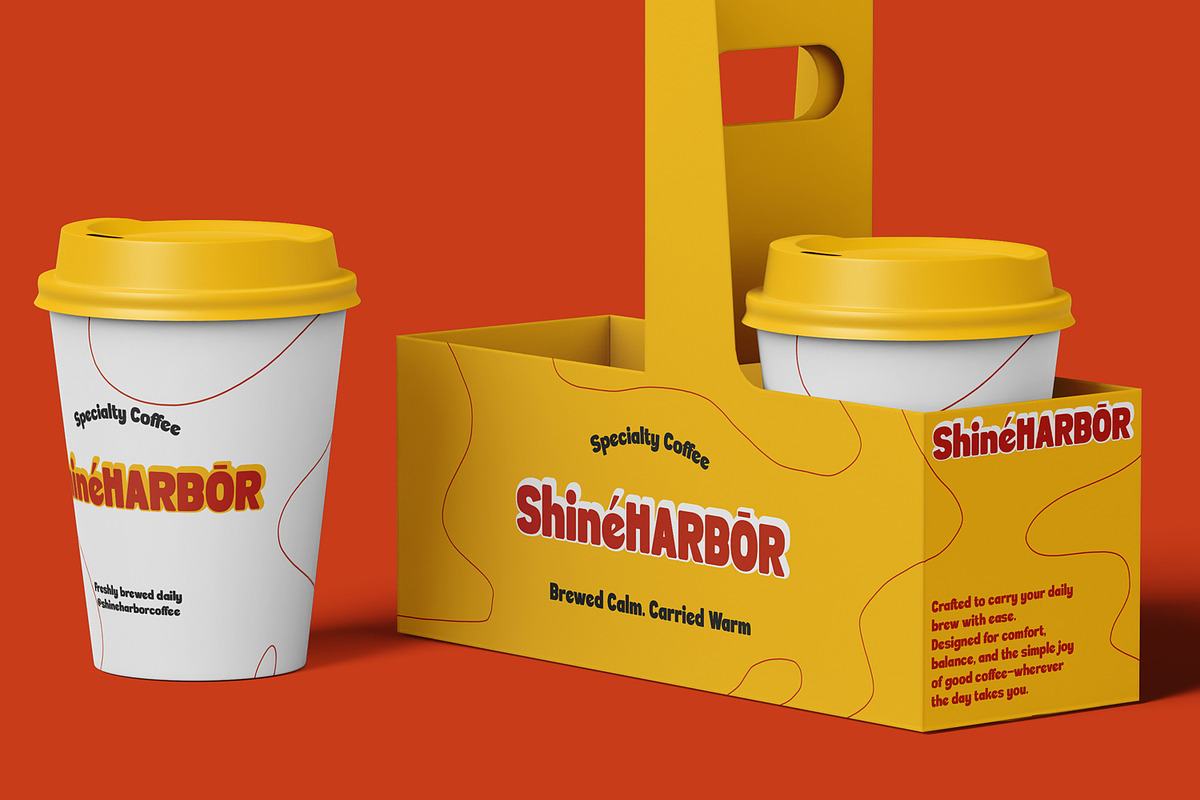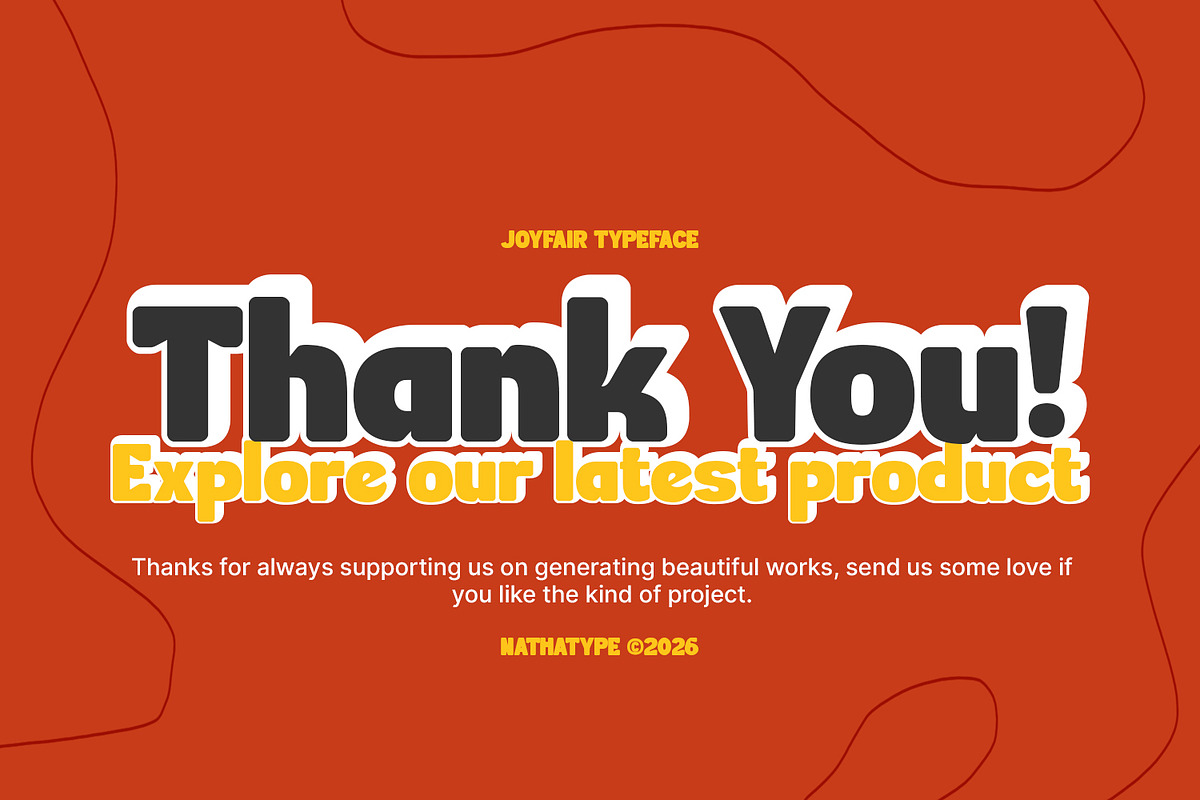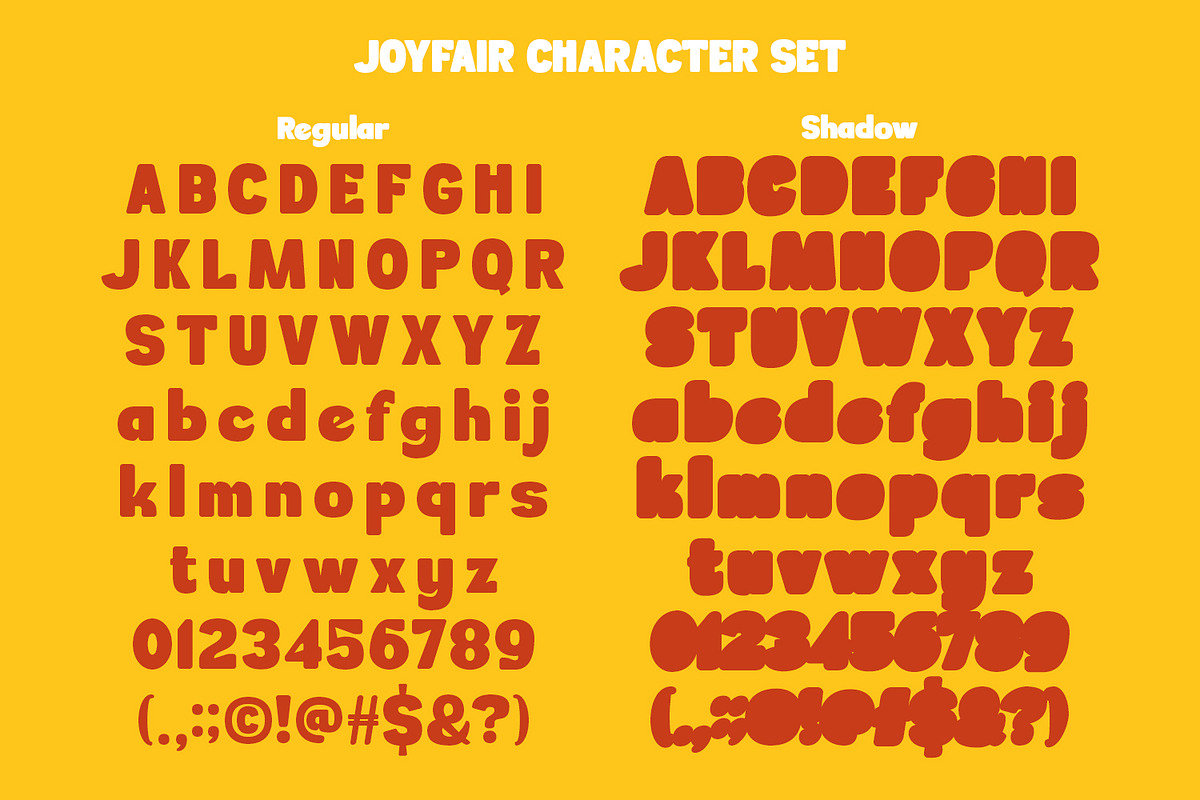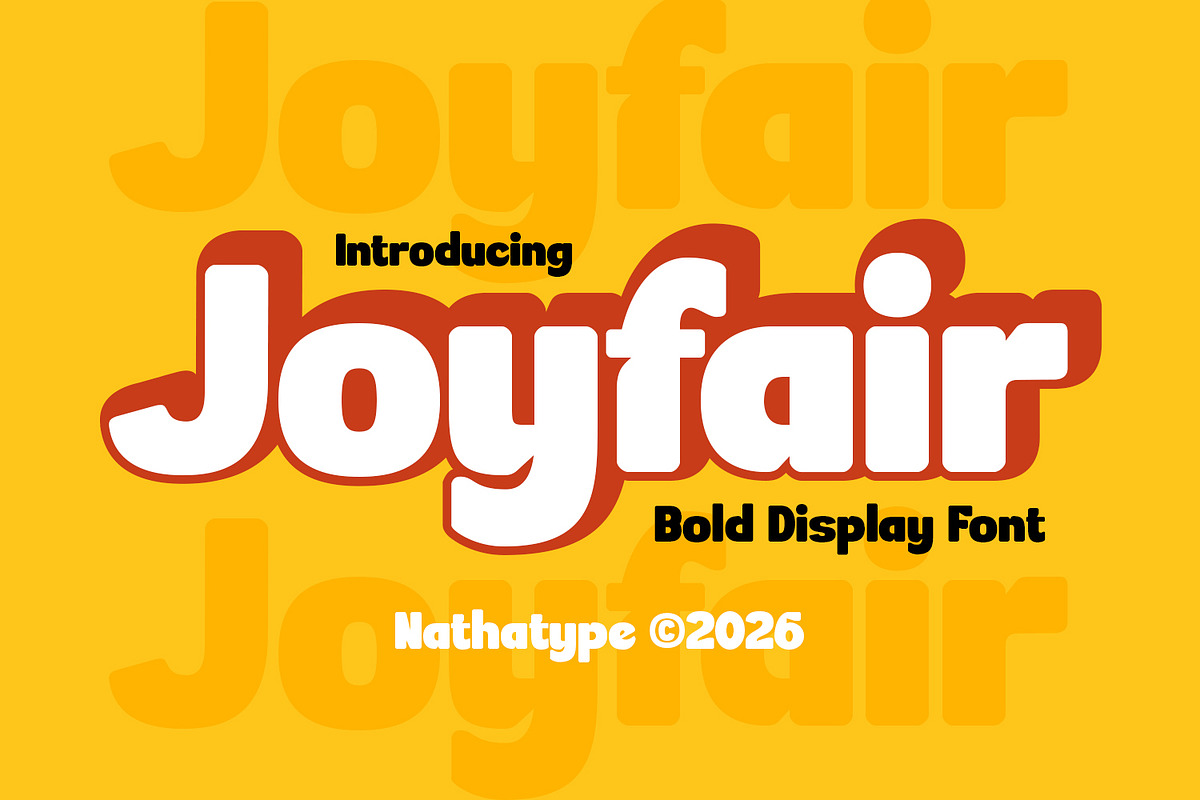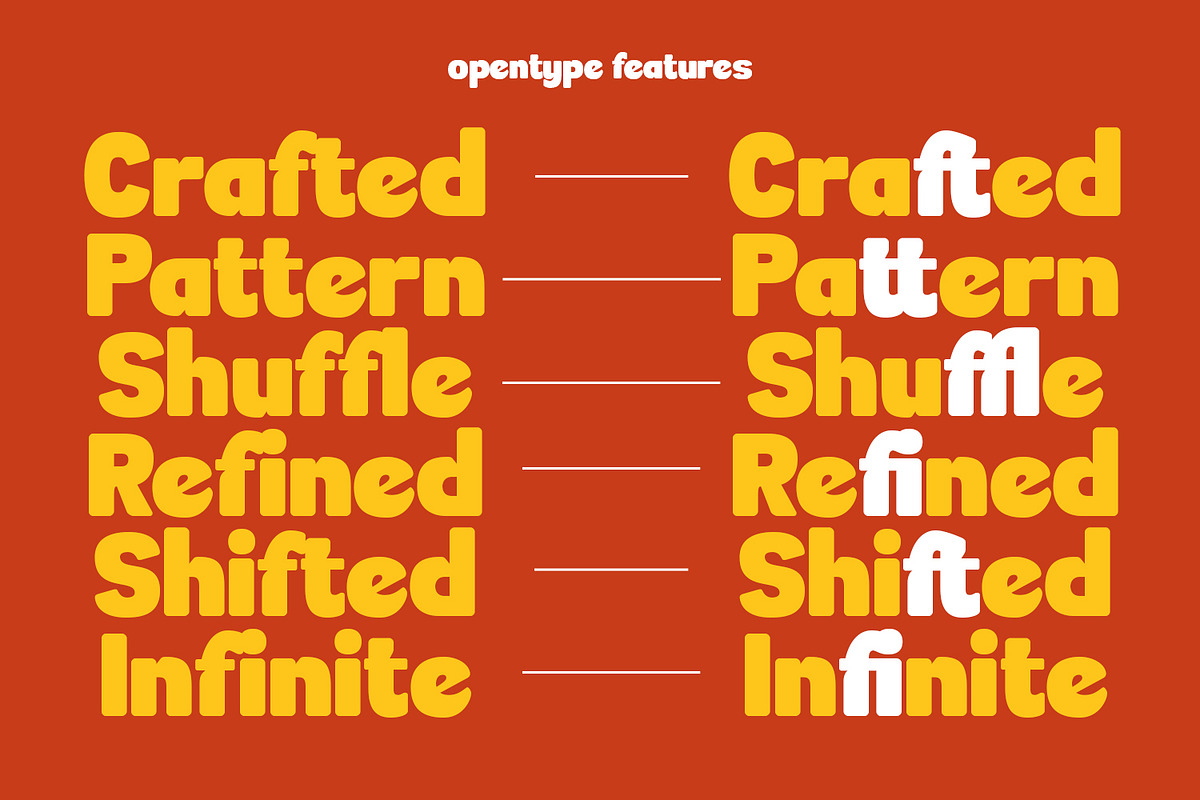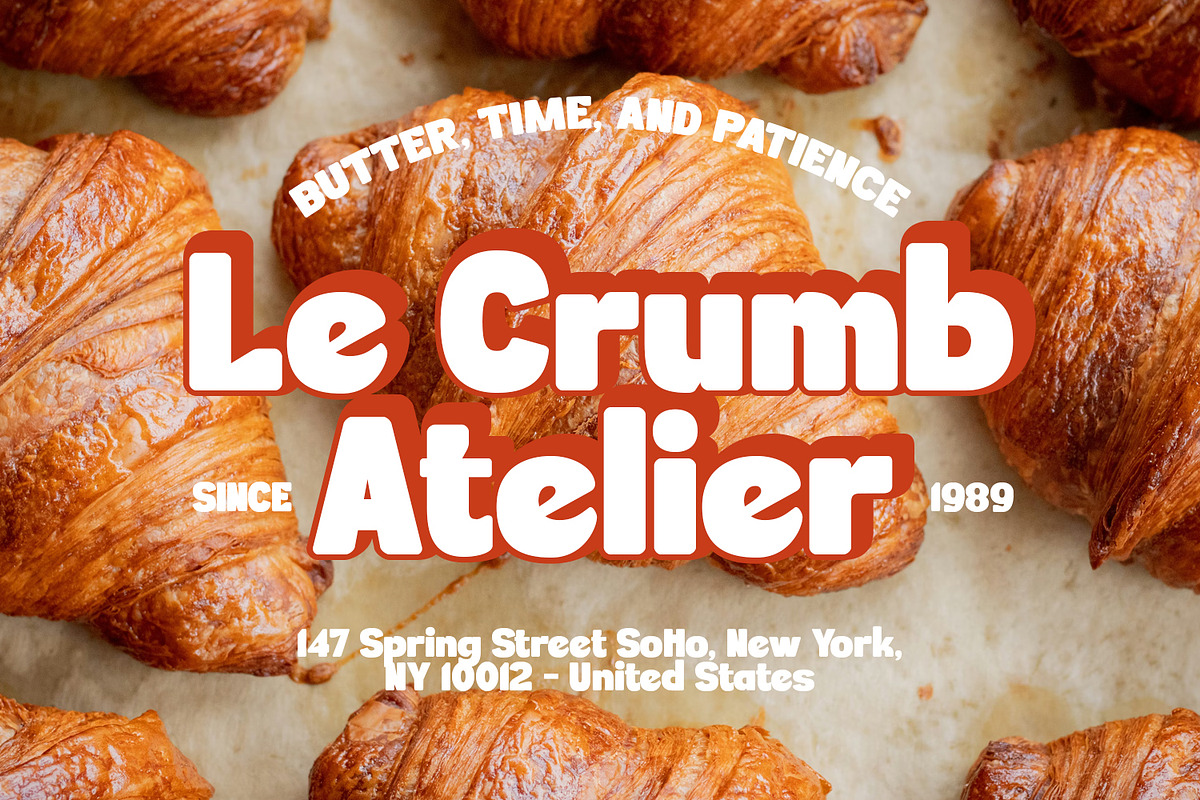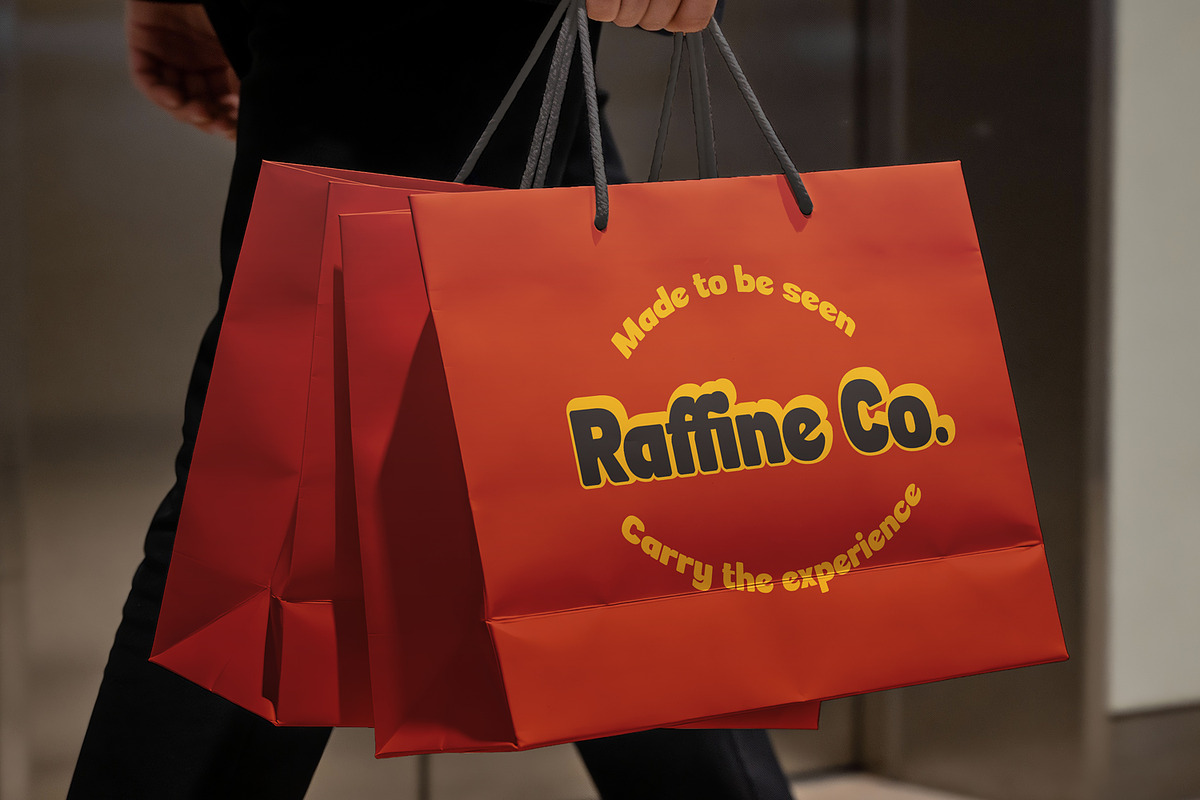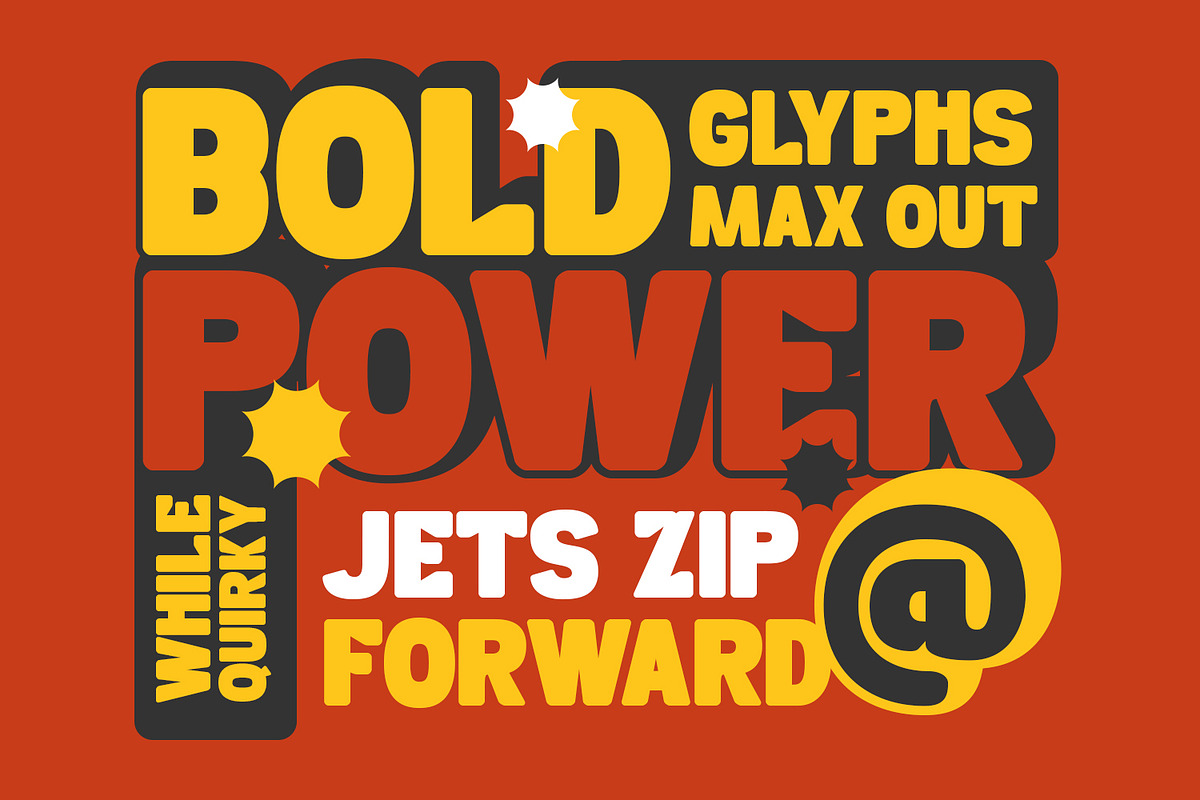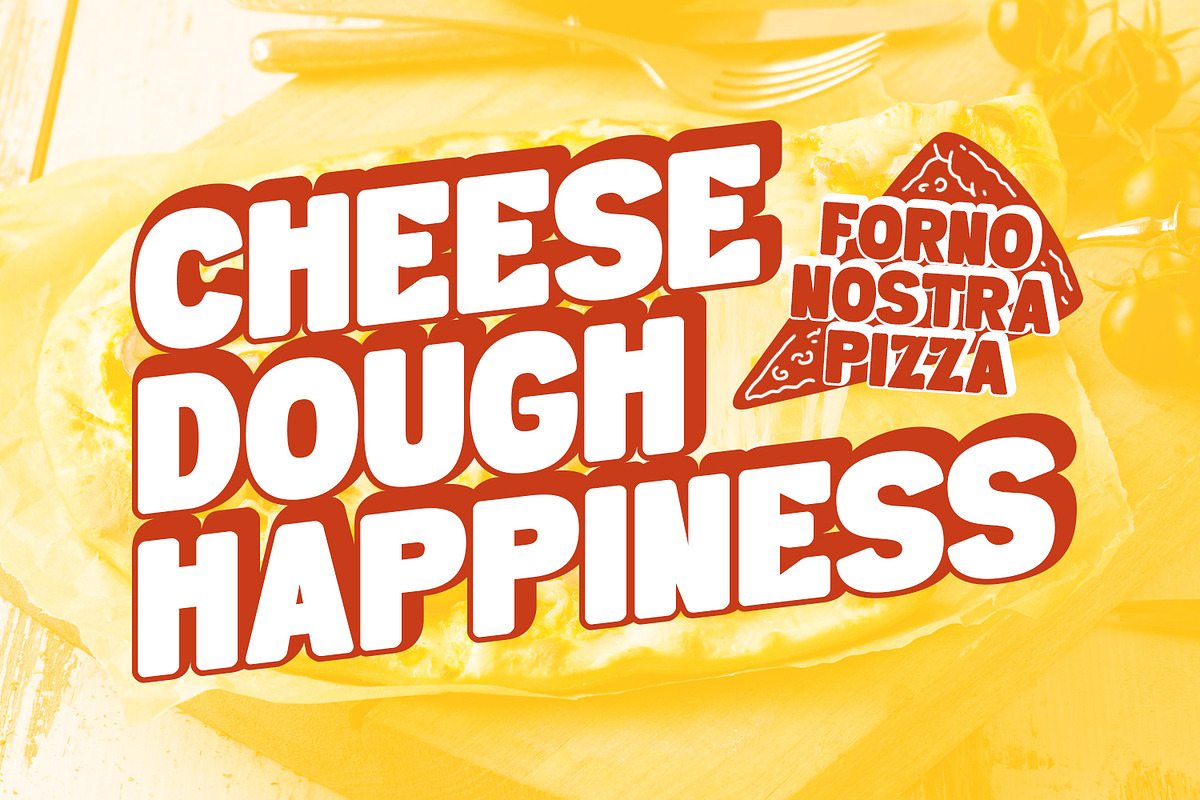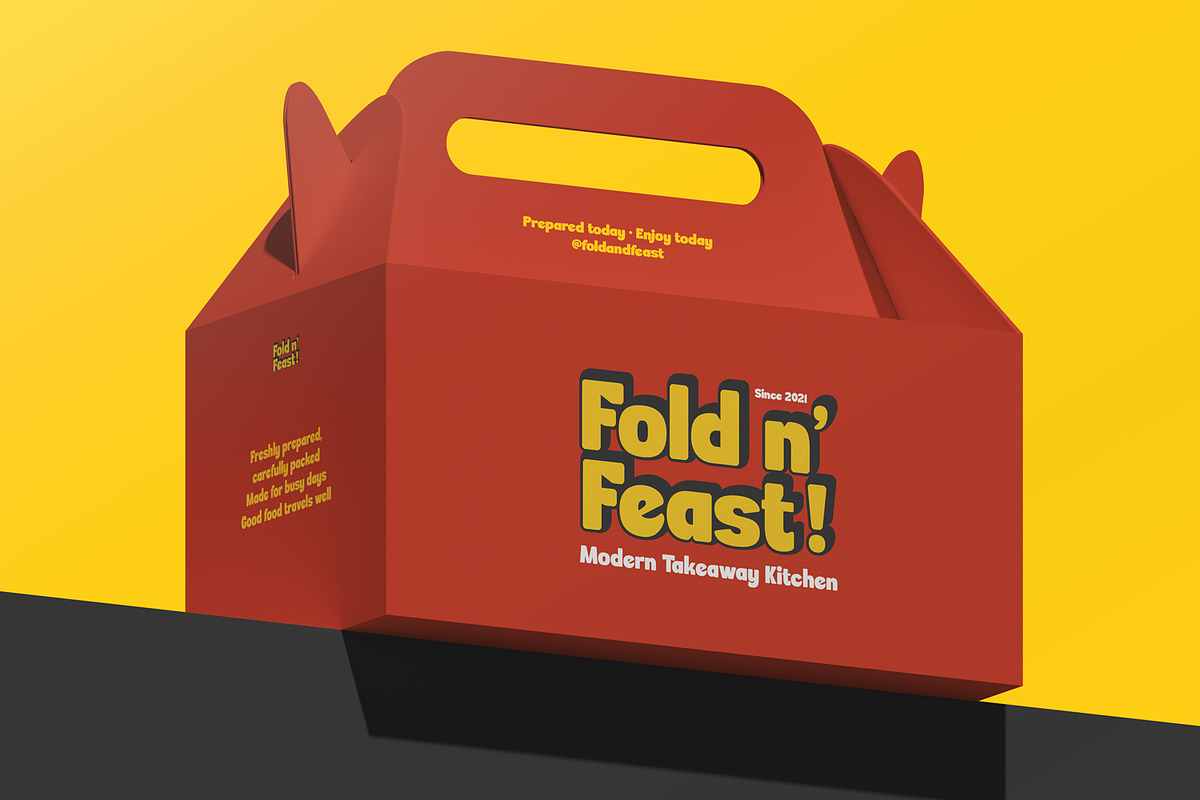
Joyfair
Joyfair is a vibrant and modern bold display font designed to bring clarity, friendliness, and strong visual impact to your typography. Crafted with rounded shapes and consistent proportions, Joyfair offers a smooth, balanced appearance that feels both approachable and professional. It’s the perfect choice for designers looking for a bold typeface that delivers personality without sacrificing readability. In addition, enjoy the features here.
Joyfair fits in logos, quotes, branding, posters, and many more designs. Find out more ways to use this font by taking a look at the font preview.